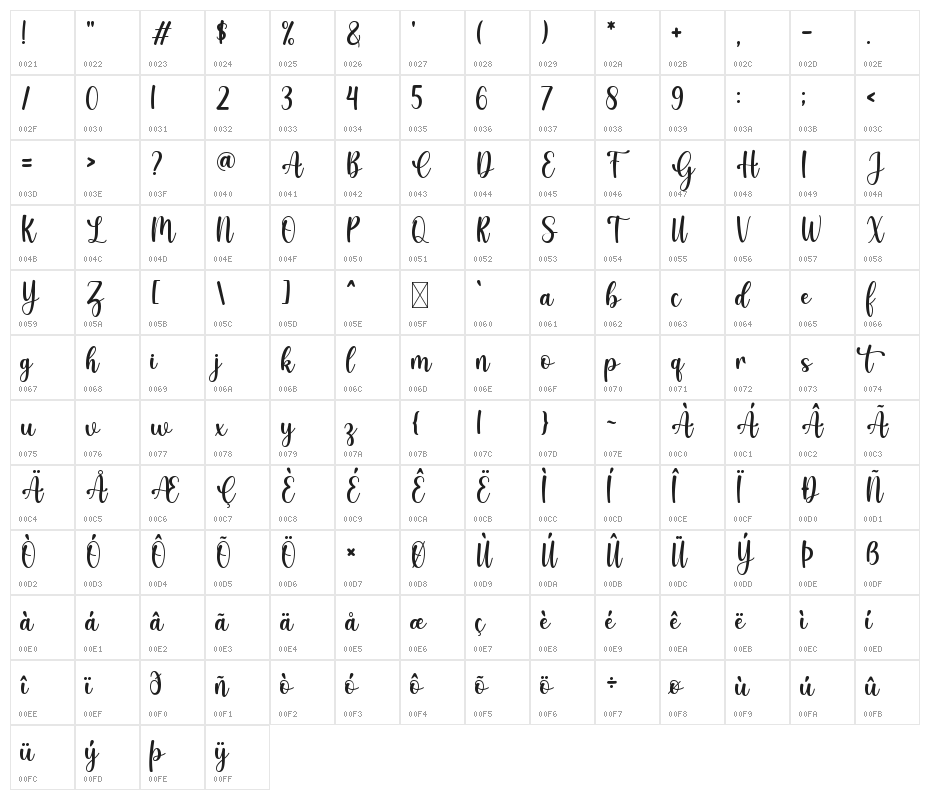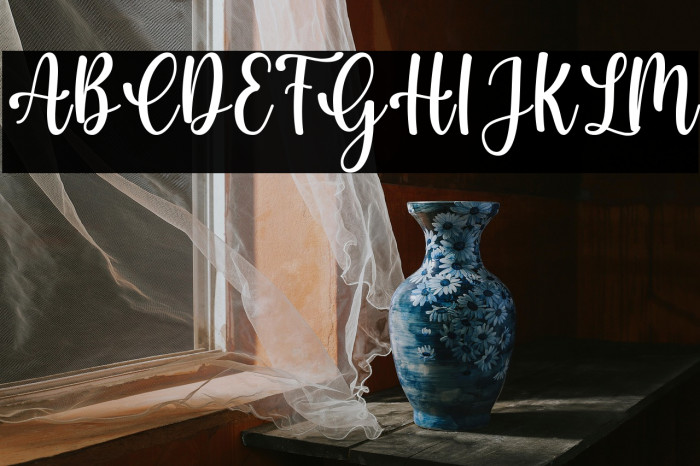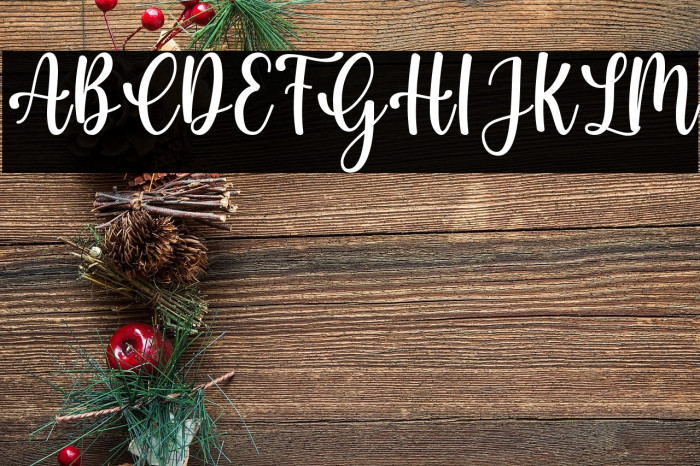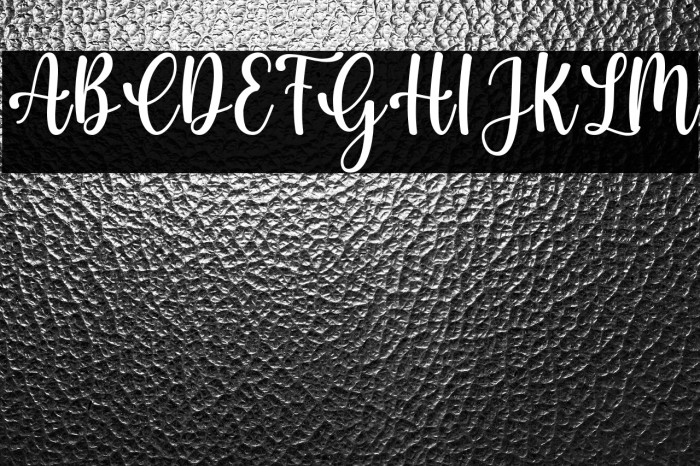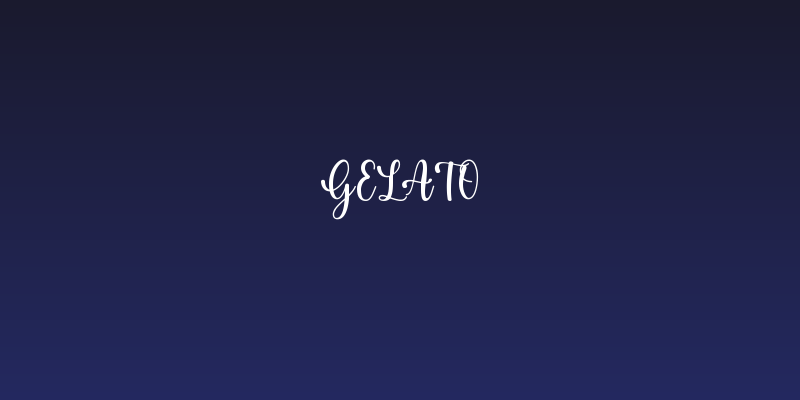
Gelato Font
Gelato Description
This font features a playful and elegant script style with a handwritten feel. The characters are fluid and connected, showcasing a smooth, flowing design that adds a touch of sophistication. The uppercase letters are bold and prominent, while the lowercase letters maintain a consistent and harmonious flow. The numerals are clear and easy to read, complementing the overall aesthetic. Special characters are designed with the same attention to detail, ensuring a cohesive look across all elements. This font is perfect for projects that require a personal and artistic touch, such as invitations, greeting cards, and branding materials.